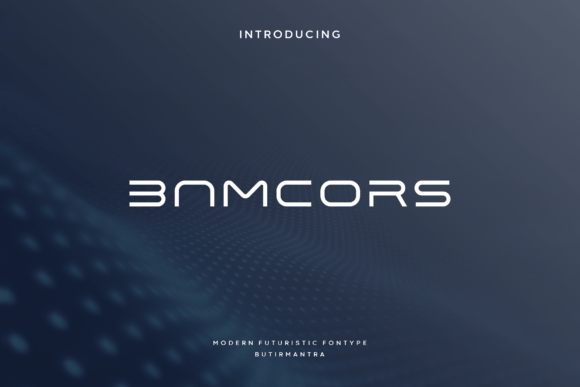
The Perfect Font for Your Next Design Project
As designers, we’ve all been there – staring at a blank canvas, trying to come up with the perfect idea to capture our client’s brand identity. Sometimes, it’s the smallest details that make all the difference. For me, it was the moment I stumbled upon the Bamcors Font, and I knew I had found the perfect fit for my latest project.
Bamcors Font is a display font designed to make a statement, with its sleek and modern aesthetic that’s perfect for headlines, branding, and logo designs. Its simple yet elegant design gives it a classy touch that’s sure to elevate any design. Whether you’re a seasoned designer or just starting out, the Bamcors Font is a valuable tool to have in your arsenal.
Bamcors Font Key Features
- Font Family: Bamcors Font is a sans-serif typeface, offering a clean and modern aesthetic.
- Character Set: The font includes a comprehensive character set, supporting multiple languages, including Latin, Cyrillic, and Greek scripts.
- Unique Characteristics: Bamcors Font features a distinctive rounded edge and subtle geometric shapes, making it suitable for a variety of design applications, including digital interfaces, signage, and publishing.
- Font Style: The font includes multiple styles, including Light, Regular, Medium, Bold, and Black, allowing users to customize their design according to their needs.
Bamcors Font Review
I recently had the chance to work with the Bamcors Font, and I have to say, it’s a unique and interesting addition to any design project. Here are my thoughts on what works well and what doesn’t.
- The Bamcors Font has a clean and modern aesthetic that’s perfect for digital designs. Its sans-serif style makes it easy to read and use in a variety of contexts.
- The font’s bold and italic styles are well-designed and add a nice touch to headings and titles.
- The Bamcors Font is highly customizable, with a wide range of font sizes, colors, and line heights to choose from.
- The Bamcors Font may not be the best choice for print designs, as its digital origins make it less suitable for high-resolution printing.
- The font’s character set is limited, which may not be ideal for designs that require a wide range of languages or special characters.
The Bamcors Font is a solid choice for digital designs, offering a clean and modern aesthetic with plenty of customization options. While it may have some limitations, I think it’s a great addition to any designer’s toolkit.
Some common use cases for the Bamcors Font include:
– Creating modern and minimalist designs
– Adding a touch of elegance and sophistication to your designs
– Using it for headings, titles, and other large text elements